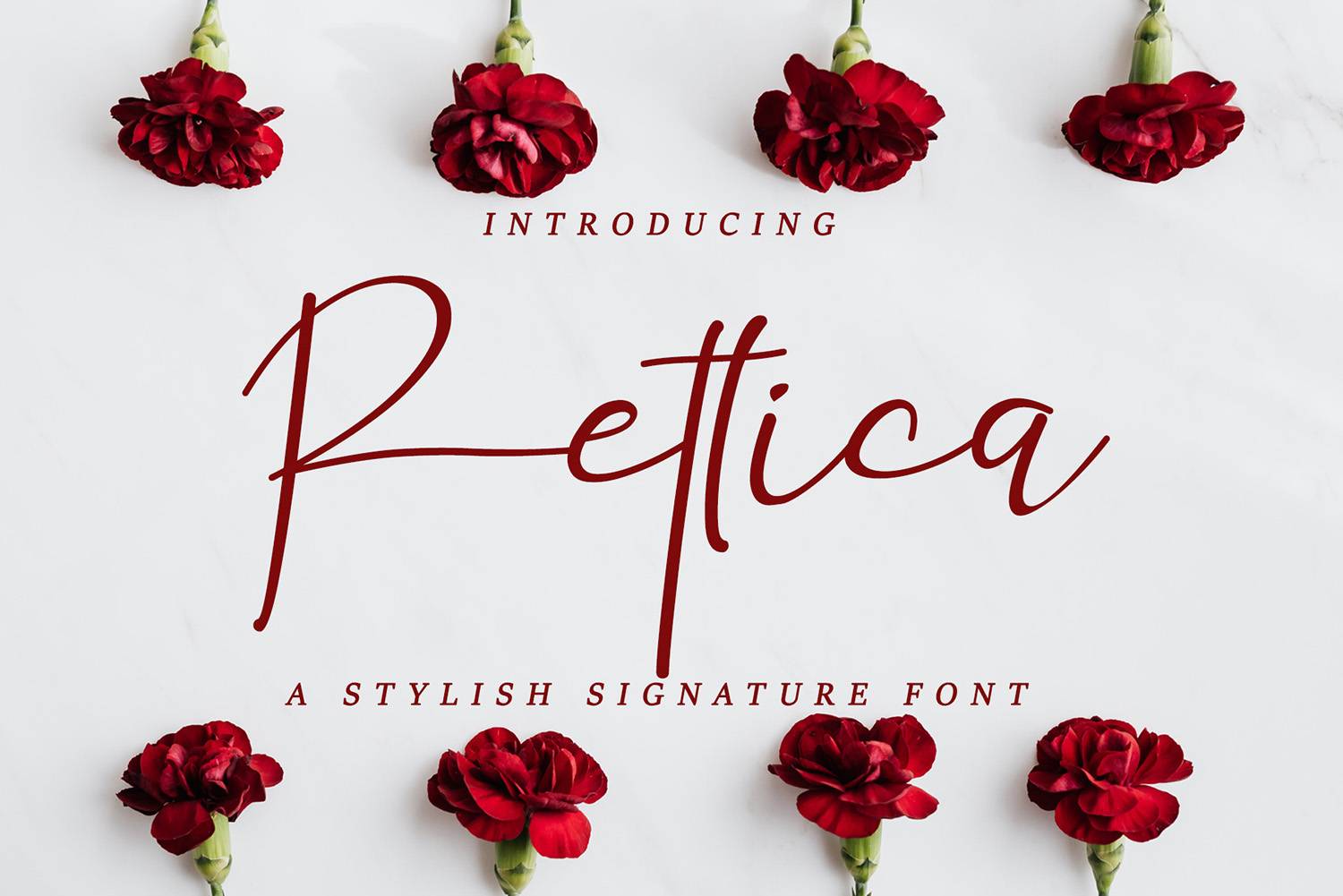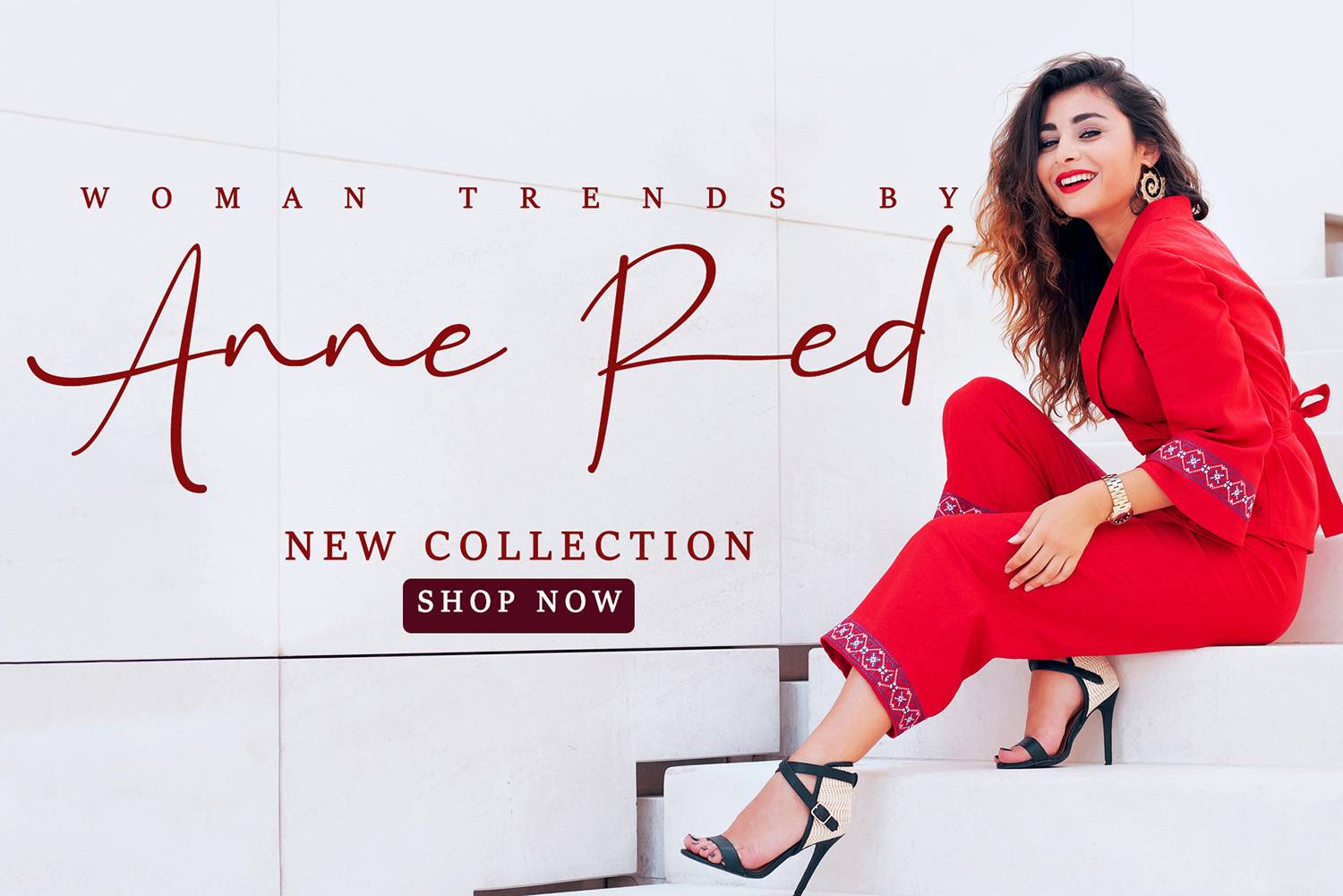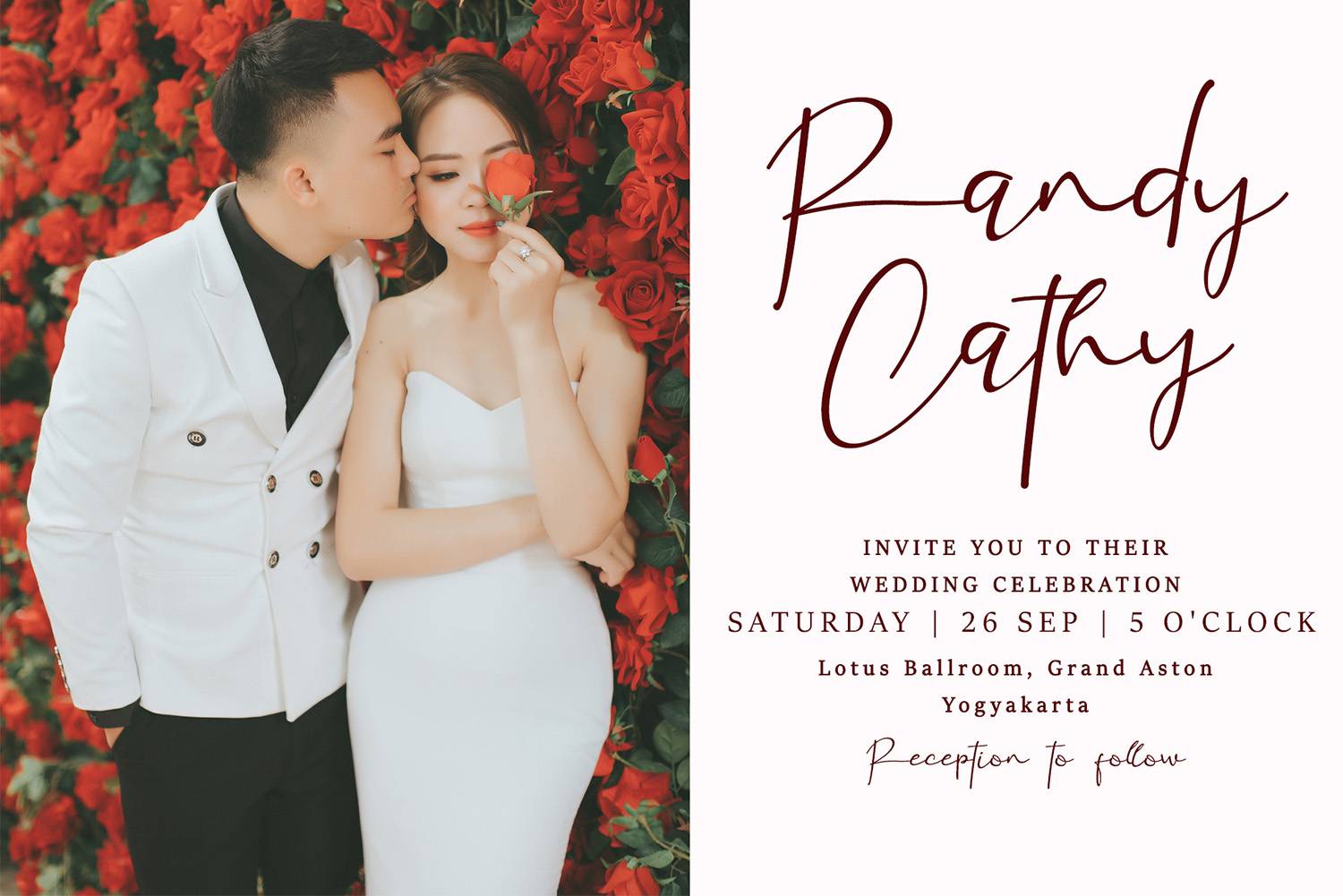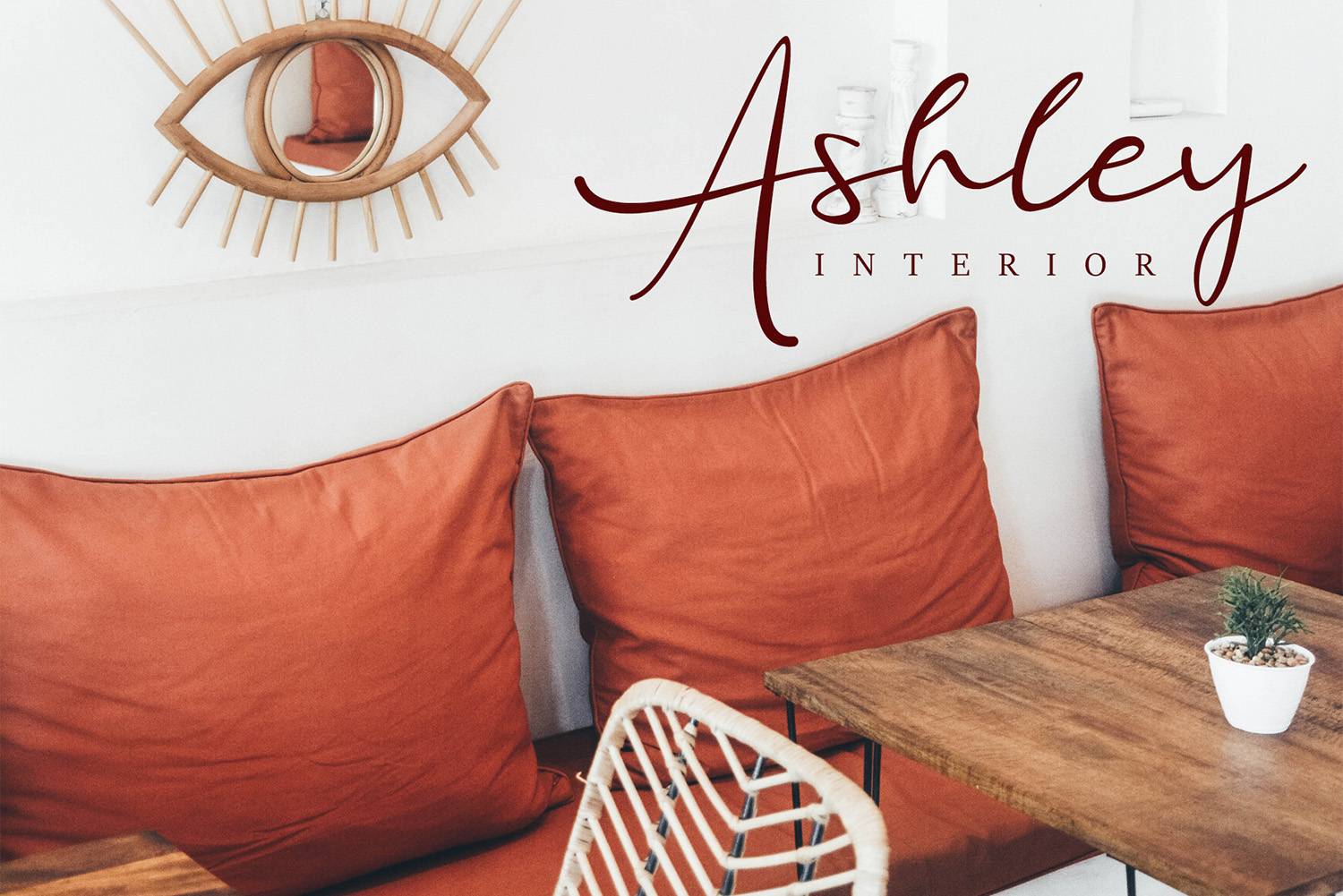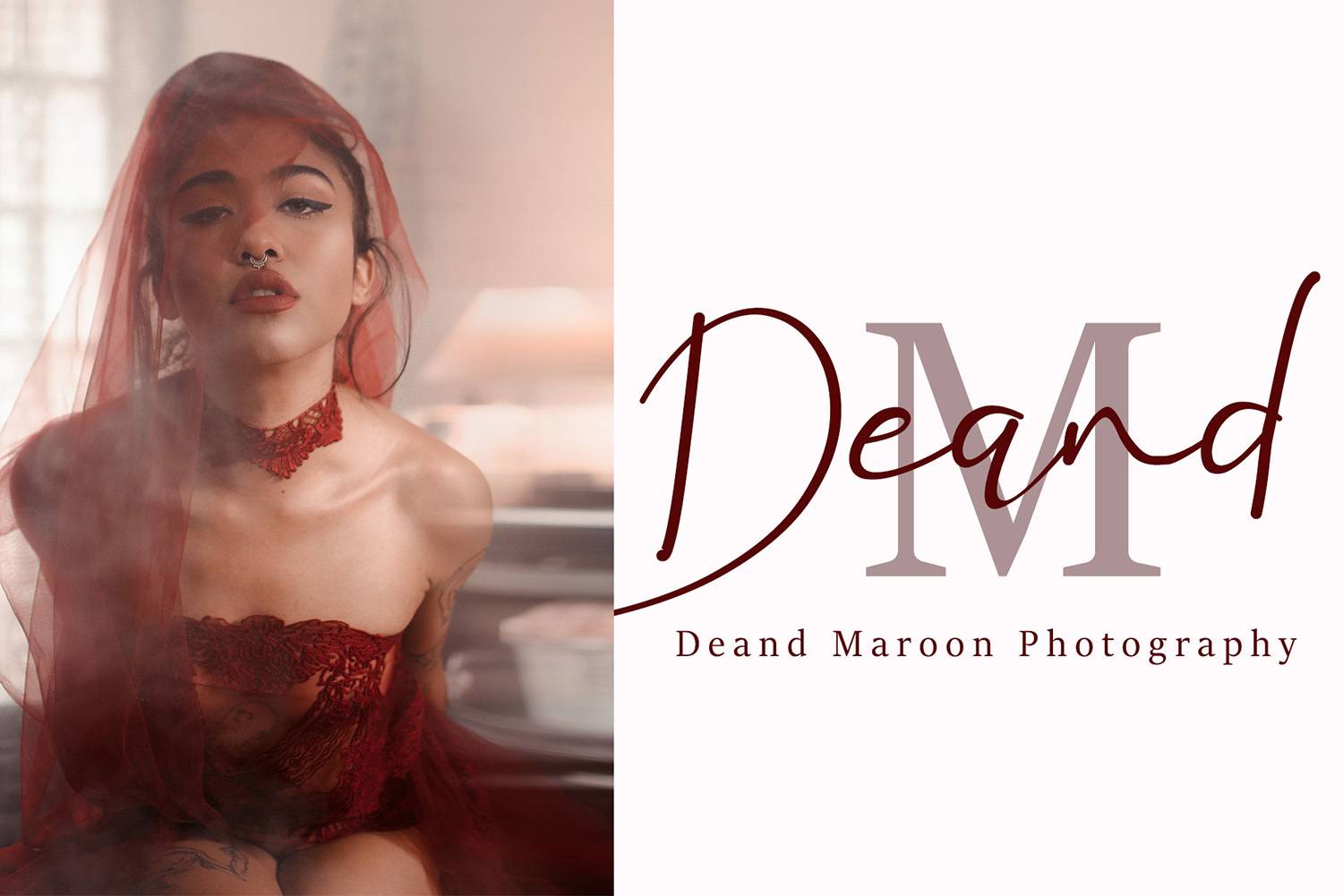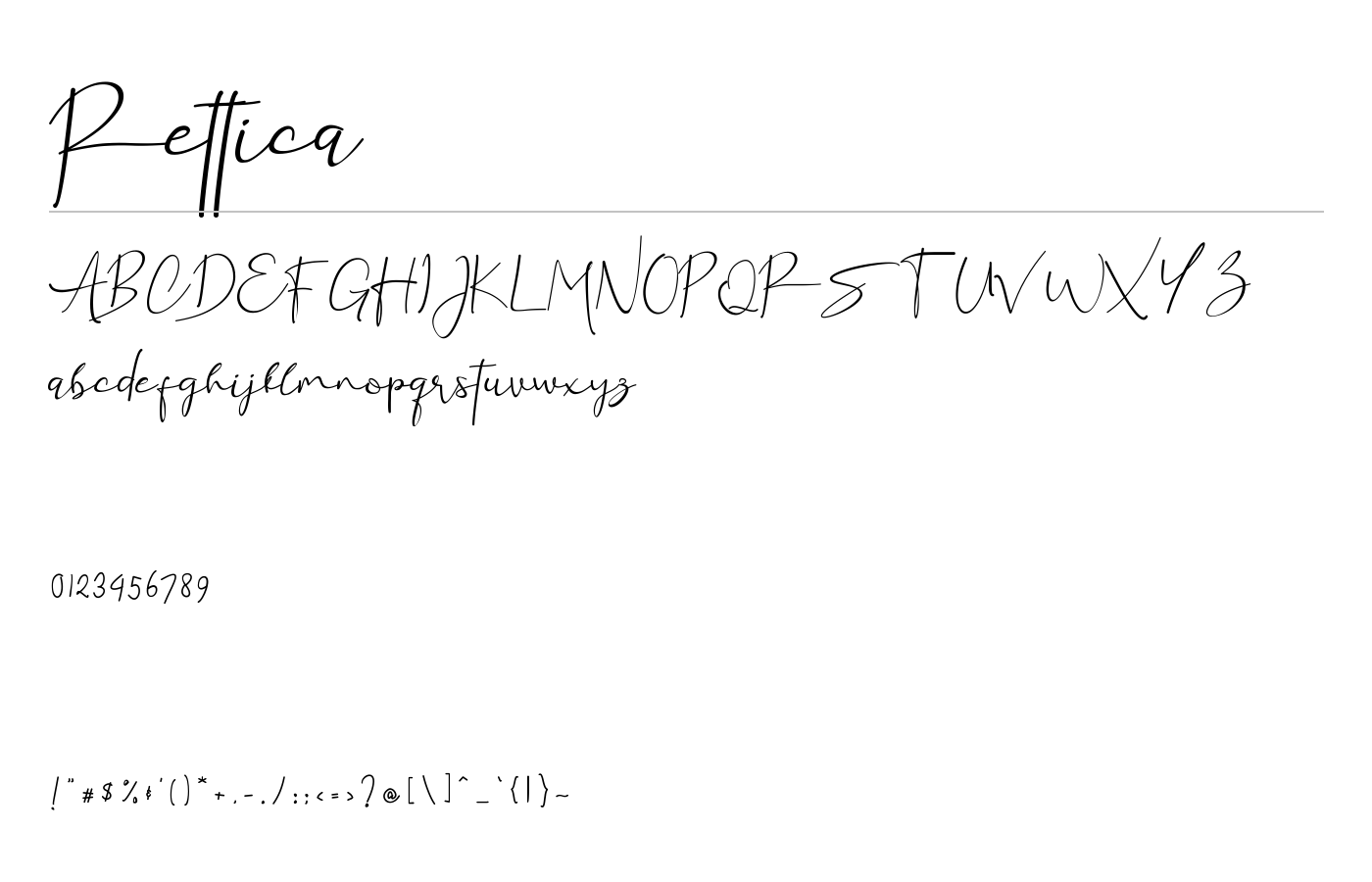
Rettica is a delicate, hand-drawn script font with a light weight and narrow width that gives it a graceful, airy feel. Its tall, slender letterforms and slightly irregular strokes evoke a natural, personal touch, making it perfect for elegant invitations, branding, and creative projects that seek a subtle, handwritten charm. This font works best in display settings where its unique, casual sophistication can shine.
Rettica Font
About Rettica Font
| Font family | Rettica Font |
| Designer | Tiny Hand Letter 2020 |